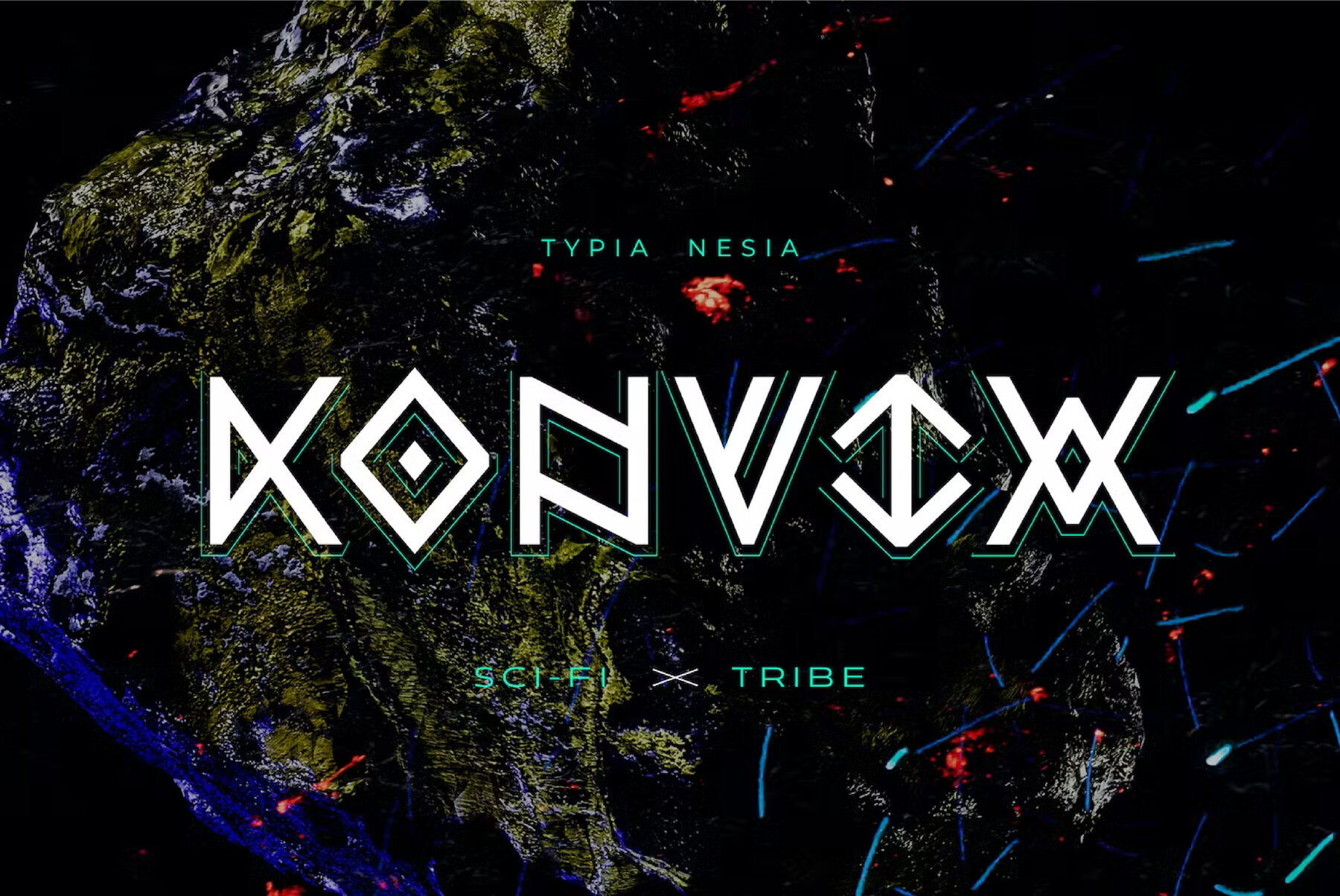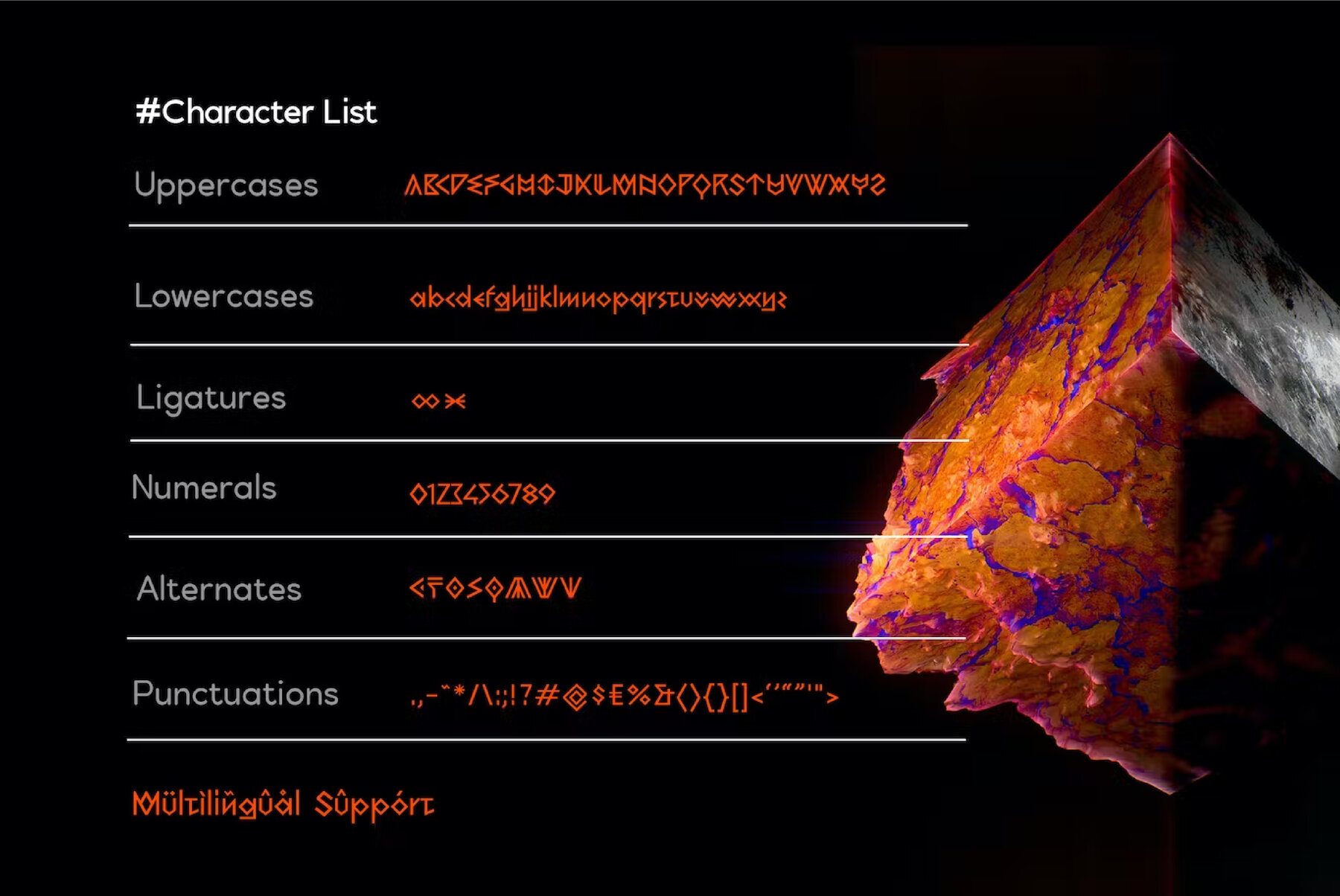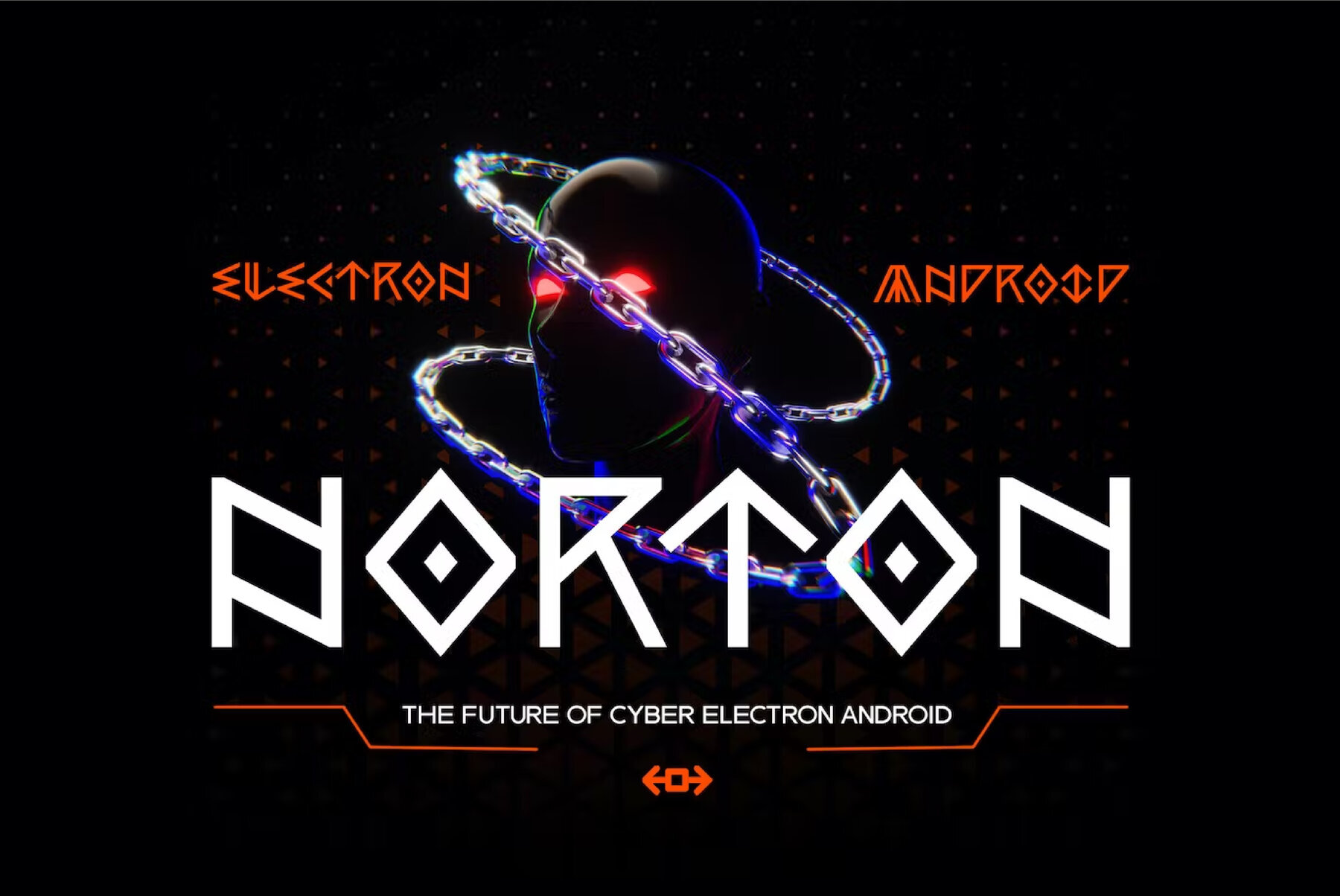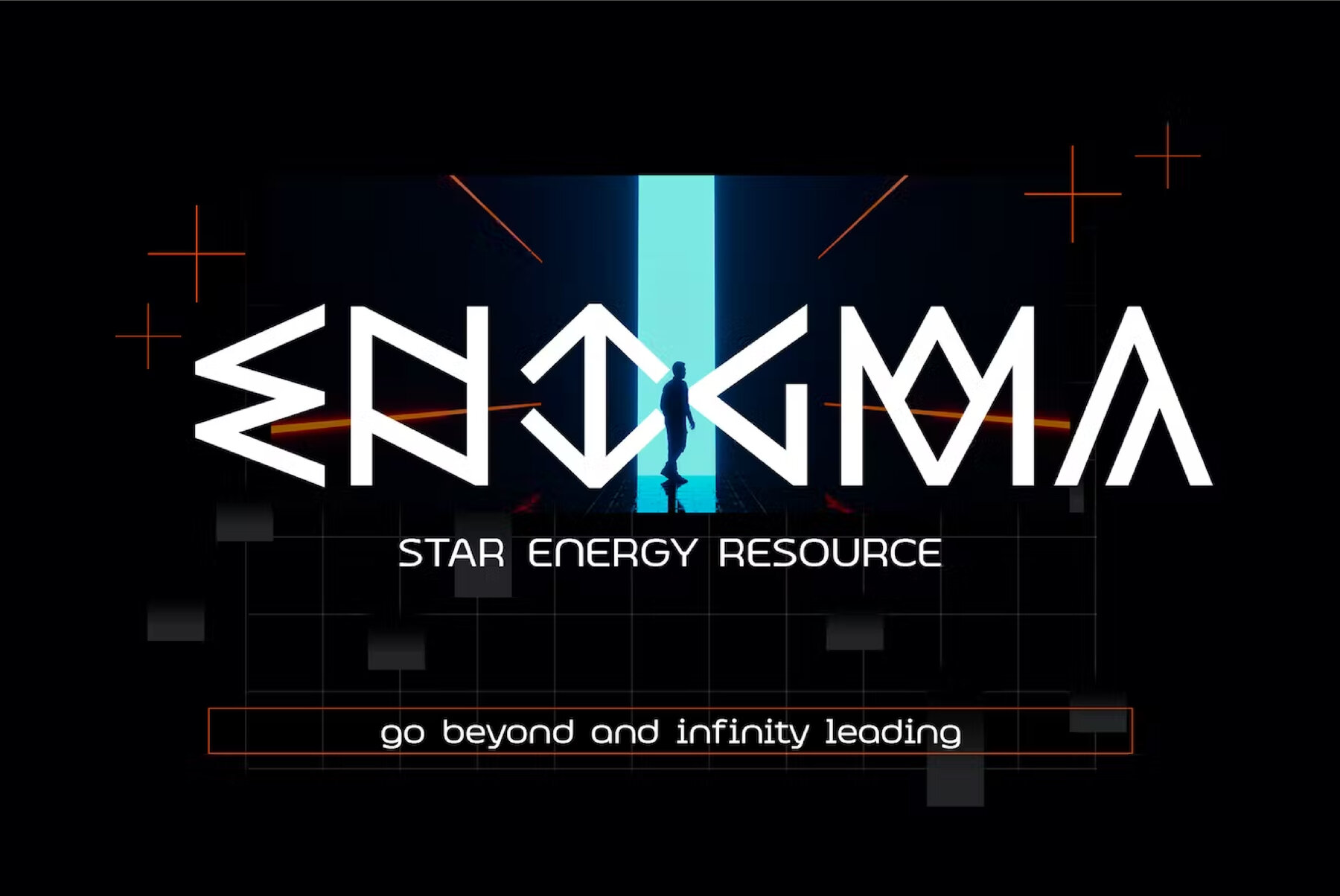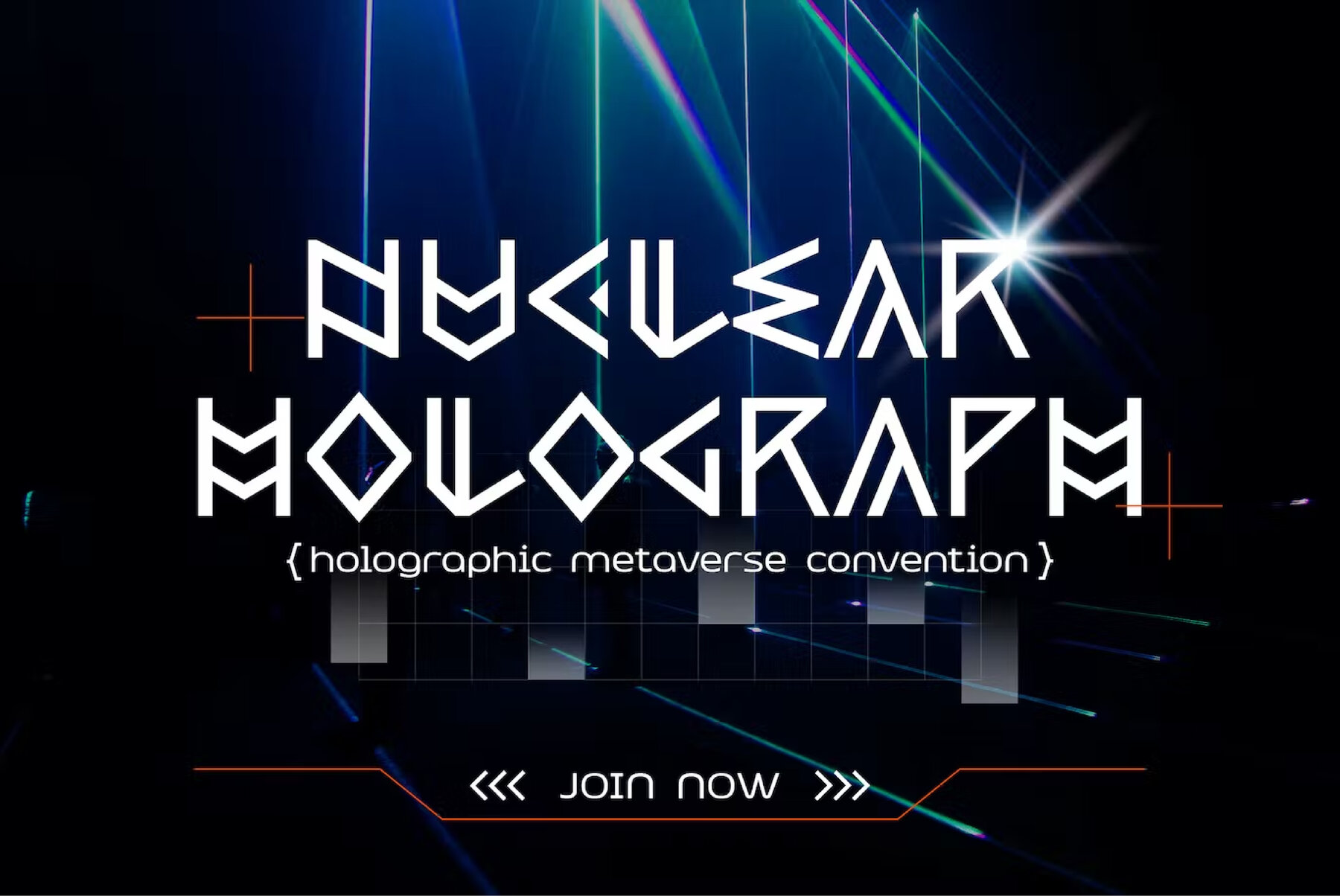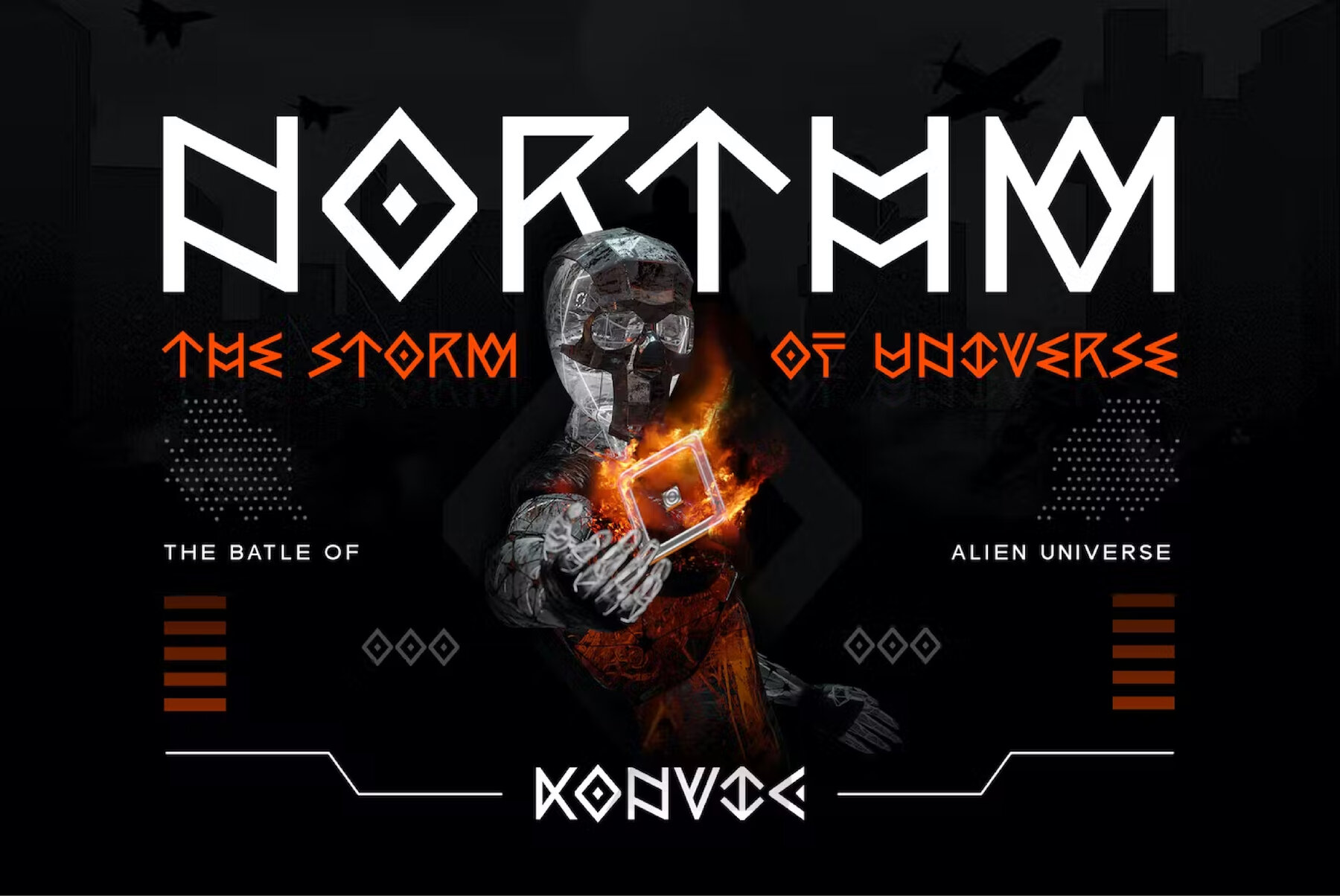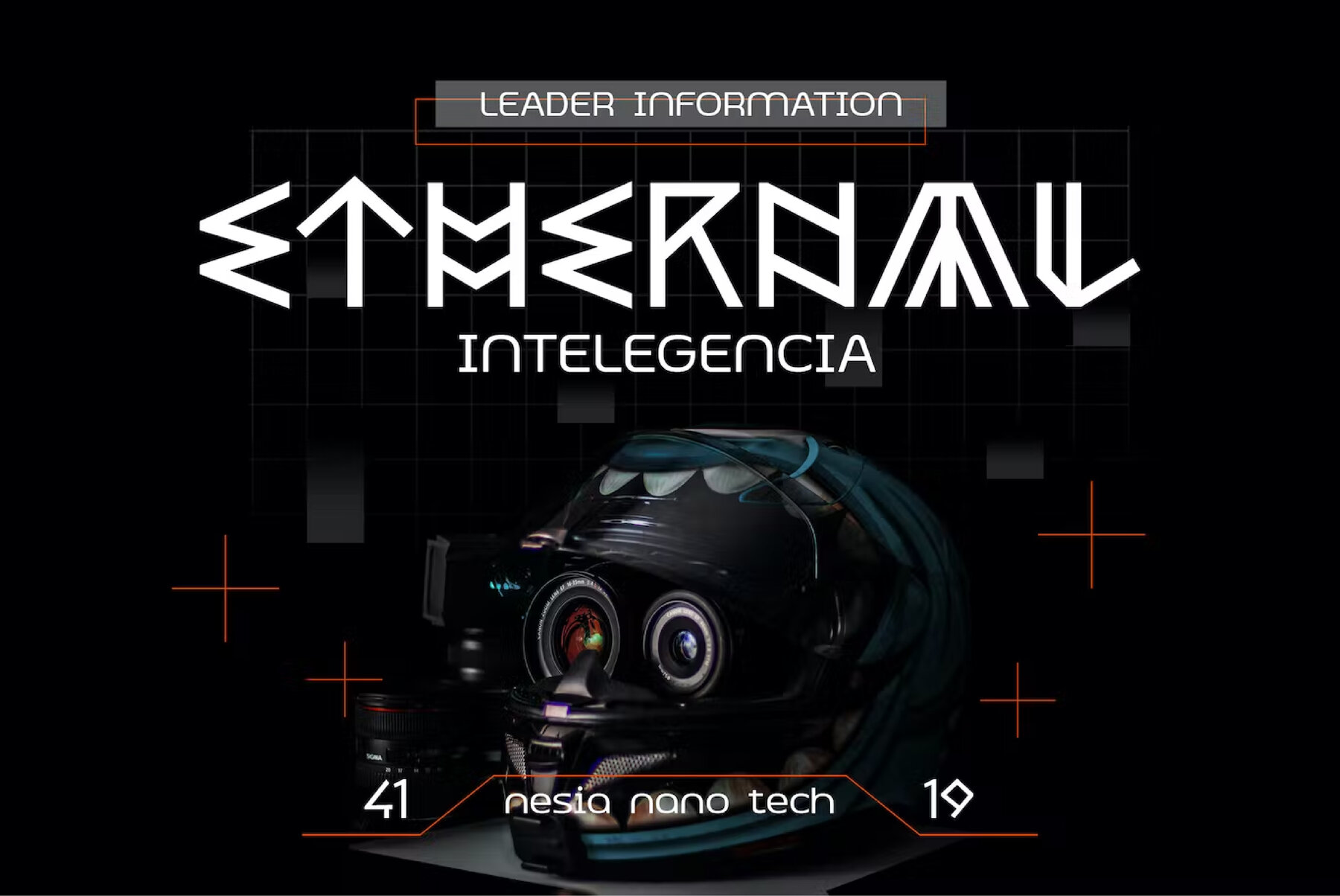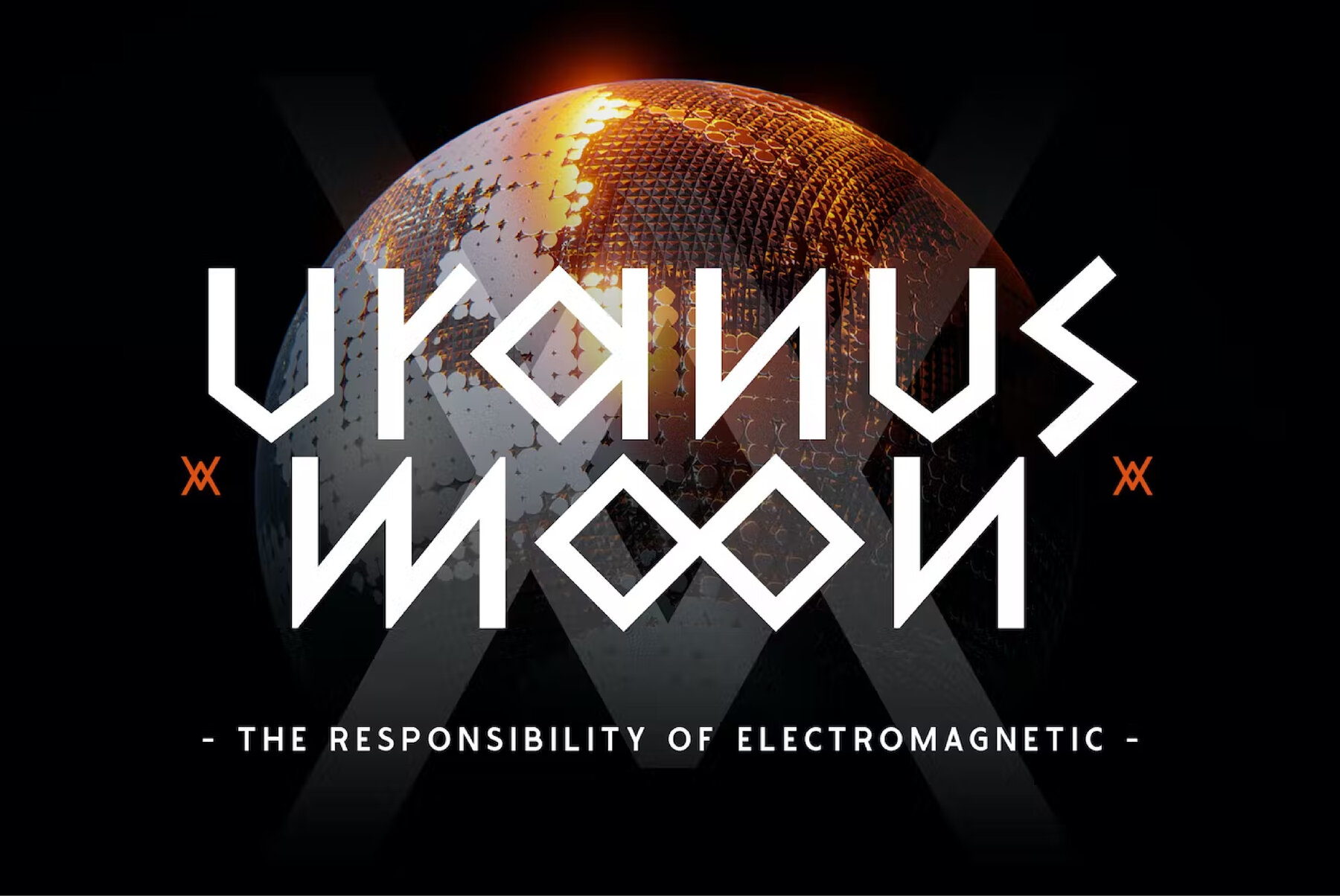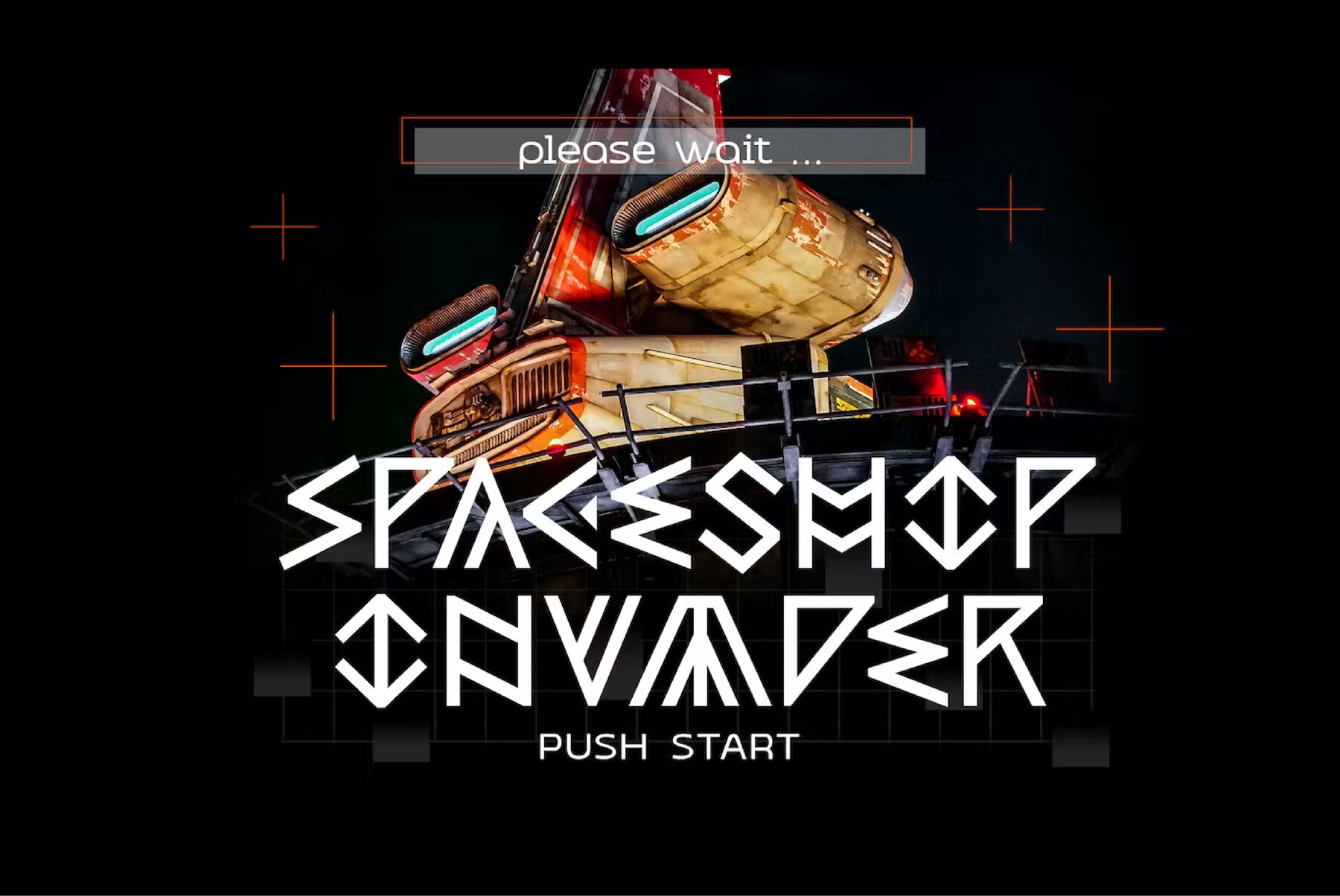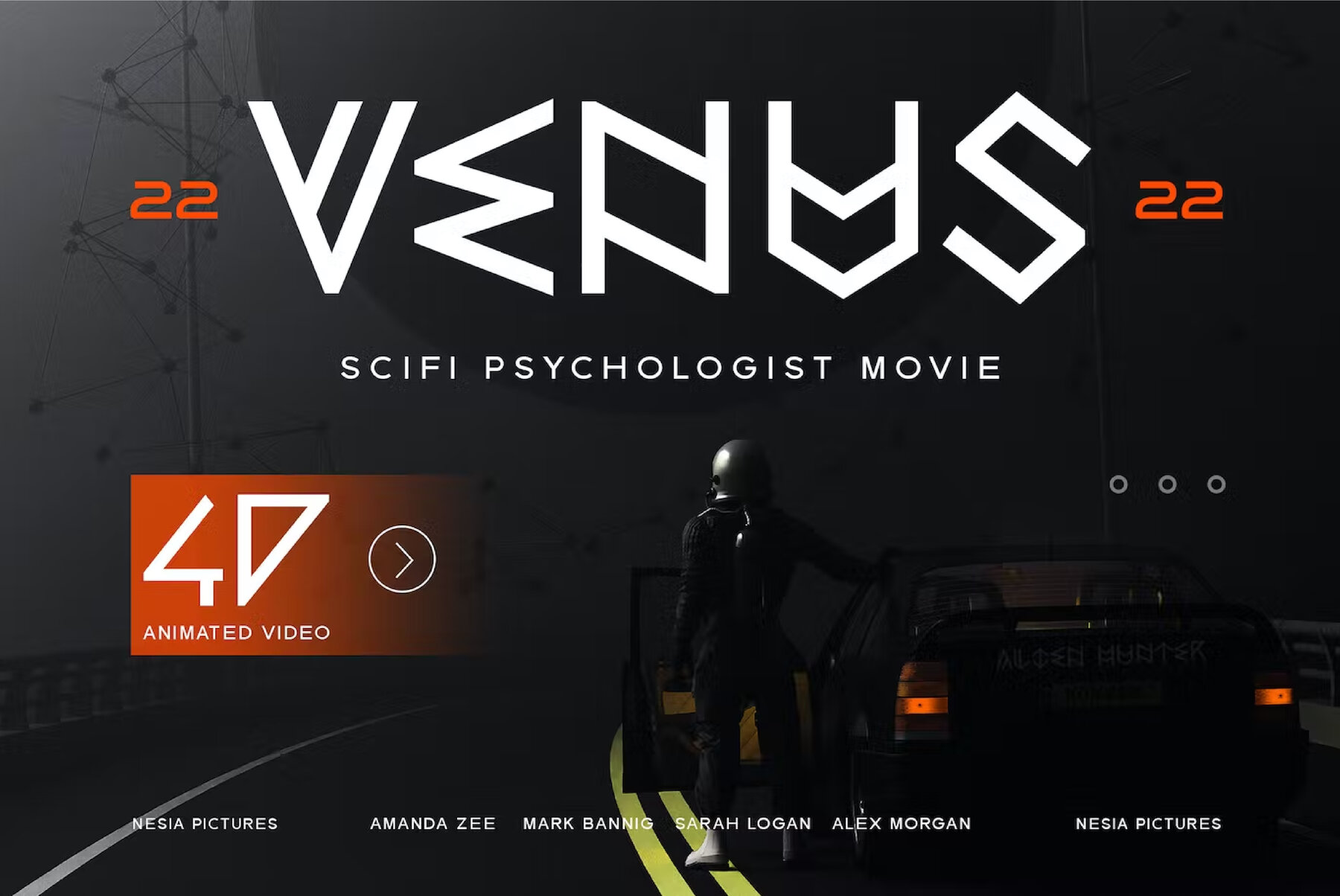
Konvix Font
Konvix Regular
Konvix from Typia Nesia Std stands out as a bold choice for a variety of projects, blending contemporary flair with a touch of retro elegance. This sans-serif display font is particularly suited to identity-focused endeavors, offering versatility that spans across diverse applications. Its dynamic style makes it an exemplary option for logo branding, editorial design, and the fast-paced gaming industry. Features: Embrace the energy and adaptability of Konvix for your next creative venture.Konvix: Striking Sans Serif for Dynamic Designs